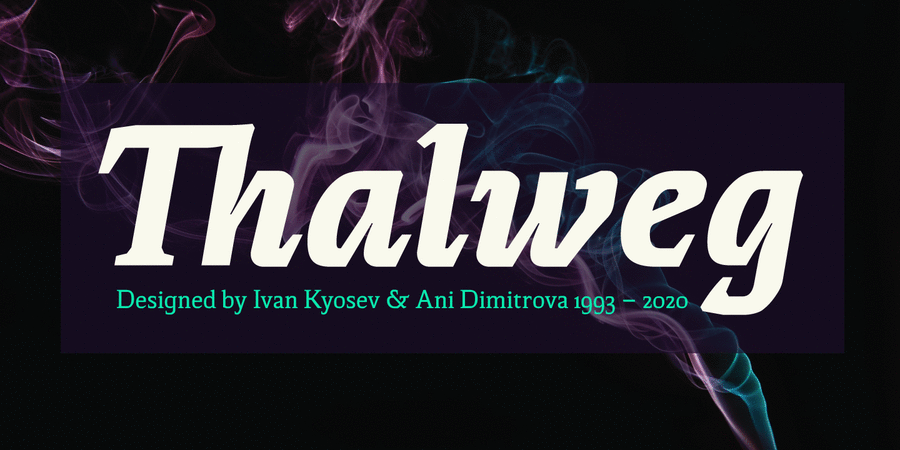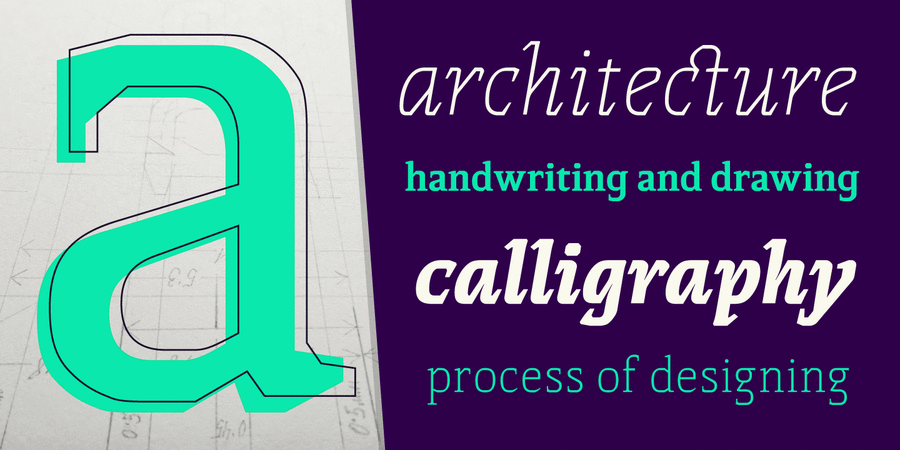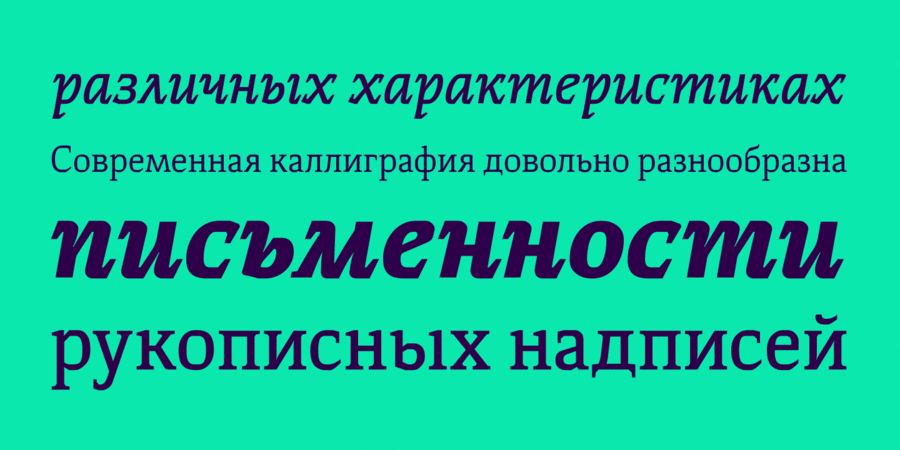
Thalweg (16 fonts)
Thalweg serif typeface is a project focused on the digitalization of drawings of the Thalweg font. The font was originally designed in 1993 by the Bulgarian artist Ivan Kyosev. In 2018 Ani Dimitrova began the revival of the Thalweg font and converted the drawings into a digital form. The existing set of characters required some necessary expansions such as capital letters, alternative symbols and many other functions. Furthermore, some additional weights were designed which aimed to make the font more complete.
Thalweg was completed in 2020 with 16 weights from Thin to Black with extra drawn italics and small caps versions, each style containing more than 1100 glyphs. The font comes with an extended coverage of the Latin, Cyrillic and Greek Scripts. All of the weights are specifically equipped for complex, professional typography with Open Type Features. These features include: Small Caps, Ligatures, Discretionary Ligatures, Superscript, Subscript, Tabular Figures, Old-Style Figures, Circled Figures, Arrows, Matching currency symbols and fraction. The Thalweg serif typeface is a perfect choice for body text, branding design, web design, editorial design and more.
thin, easy, educated, stable, serious, clever, solid, crisp, cutting, distinctive, original, dry, sharp, thorny, unusual, strange, wire, rhythmic, dynamic, autumn, clear, business, urban, strict, reputable, convincing, broken, rigid, iron, steel, proud, hammered, urbanistic, authoritative, important, monumental, architectural, self-assured, flat, ambitious, motivating, responsible, strong, robust, manly, extravagant, formidable, severe, powerful, heavy, dense, notable, bright, active, splashy, stone